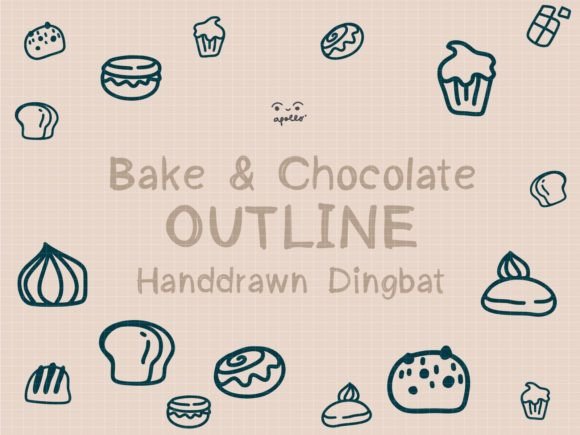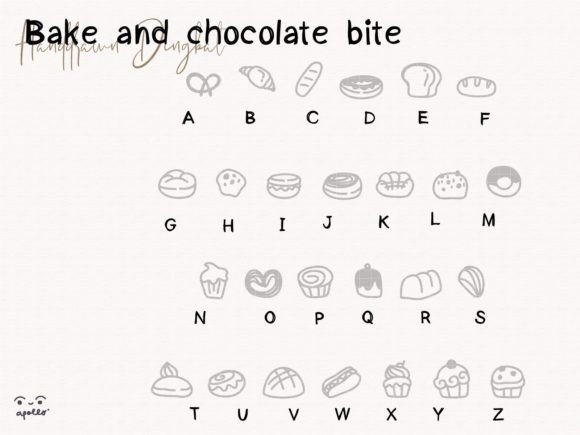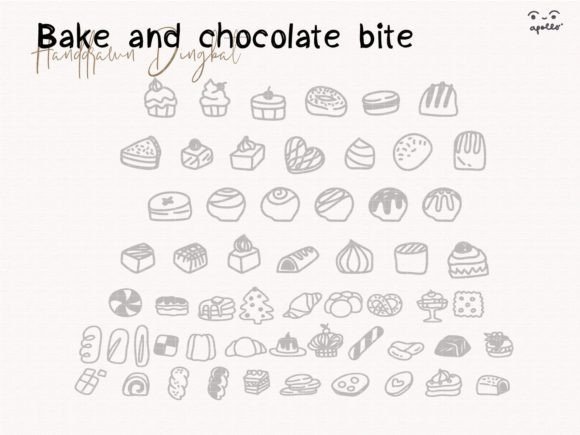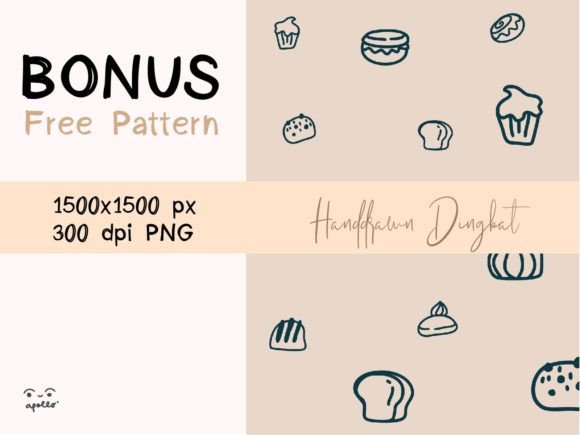
Bake and Chocolate Bite Font
About Bake and Chocolate Bite Font
The Bake and Chocolate Bite font is a charming hand-drawn doodle dingbats font that adds a playful and whimsical touch to your design projects. With its delightful collection of bakery-themed symbols and doodles, this font is a perfect choice for various purposes.
If you’re looking to enhance your invitations, the Bake and Chocolate Bite font offers a wide range of decorative elements that can be used to embellish your designs. From cute cupcakes and delicious cookies to rolling pins and mixing bowls, these doodles bring a delightful sweetness to your invitations and make them more visually appealing.
For wall art or posters related to baking or confectionery, the Bake and Chocolate Bite font can be used to create captivating typography or decorative elements. Its hand-drawn style adds a unique and artistic feel to your designs, making them stand out and evoke a sense of warmth and nostalgia.
When it comes to beverage logos, the Bake and Chocolate Bite font can bring a touch of whimsy and playfulness. The doodle-like symbols related to baking and sweets can be used to create eye-catching logos for cafes, bakeries, or any beverage brand looking to convey a fun and delicious vibe.
Seamless patterns are another area where the Bake and Chocolate Bite font shines. The variety of bakery-themed symbols allows you to create seamless patterns that are both visually appealing and cohesive. These patterns can be used in various applications, such as packaging design, textiles, or digital backgrounds, to add a delightful and playful element.
The hand-drawn nature of the Bake and Chocolate Bite font adds a personal and organic touch to your designs. It brings a sense of authenticity and warmth, making it a great choice for projects that aim to evoke a homemade or artisanal feel.
In summary, the Bake and Chocolate Bite font is a delightful hand-drawn doodle dingbats font that adds a playful and whimsical touch to your design projects. Whether you’re creating invitation embellishments, wall art, beverage logos, or seamless patterns, this font offers a range of fun and charming elements that will make your designs more visually appealing and engaging.